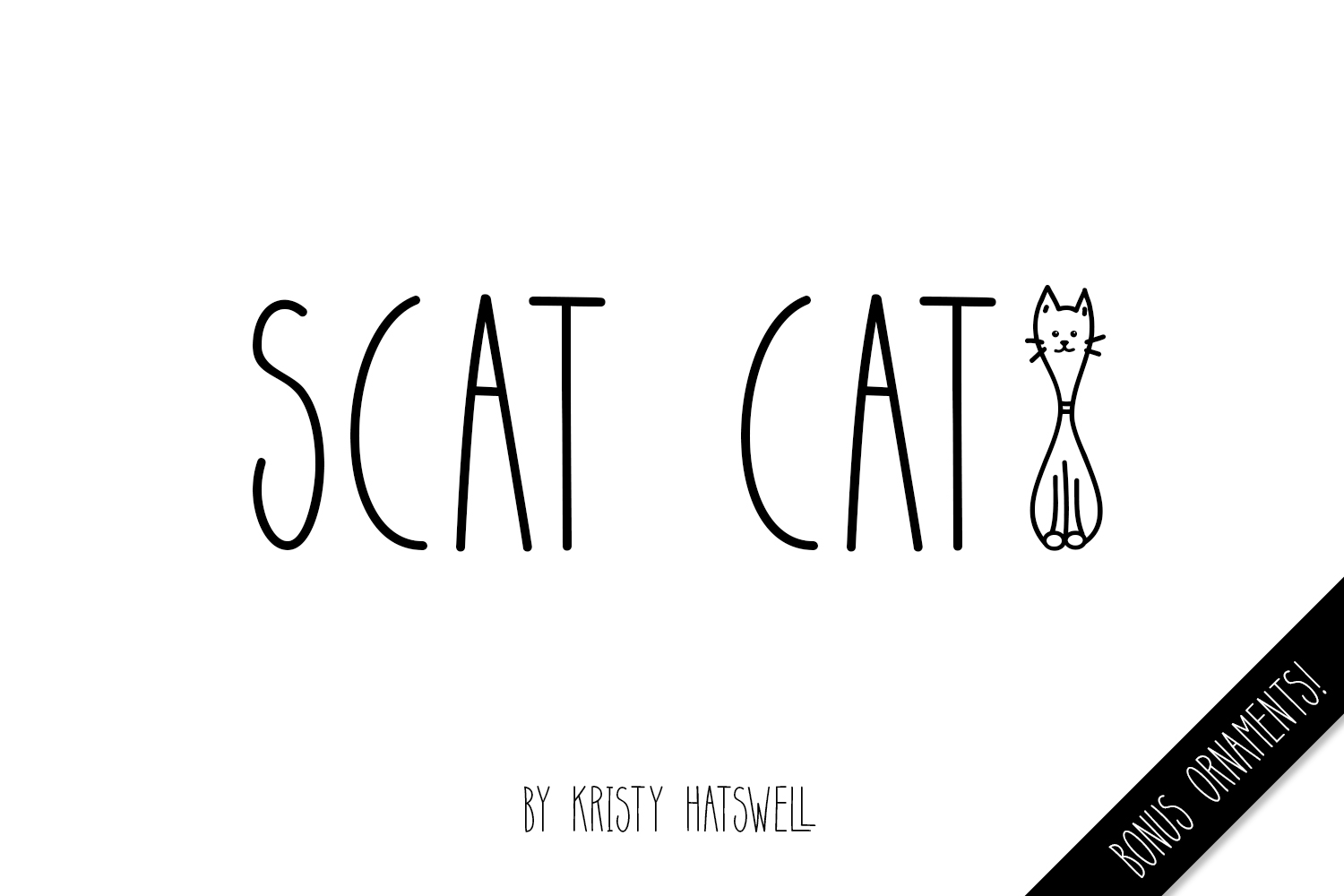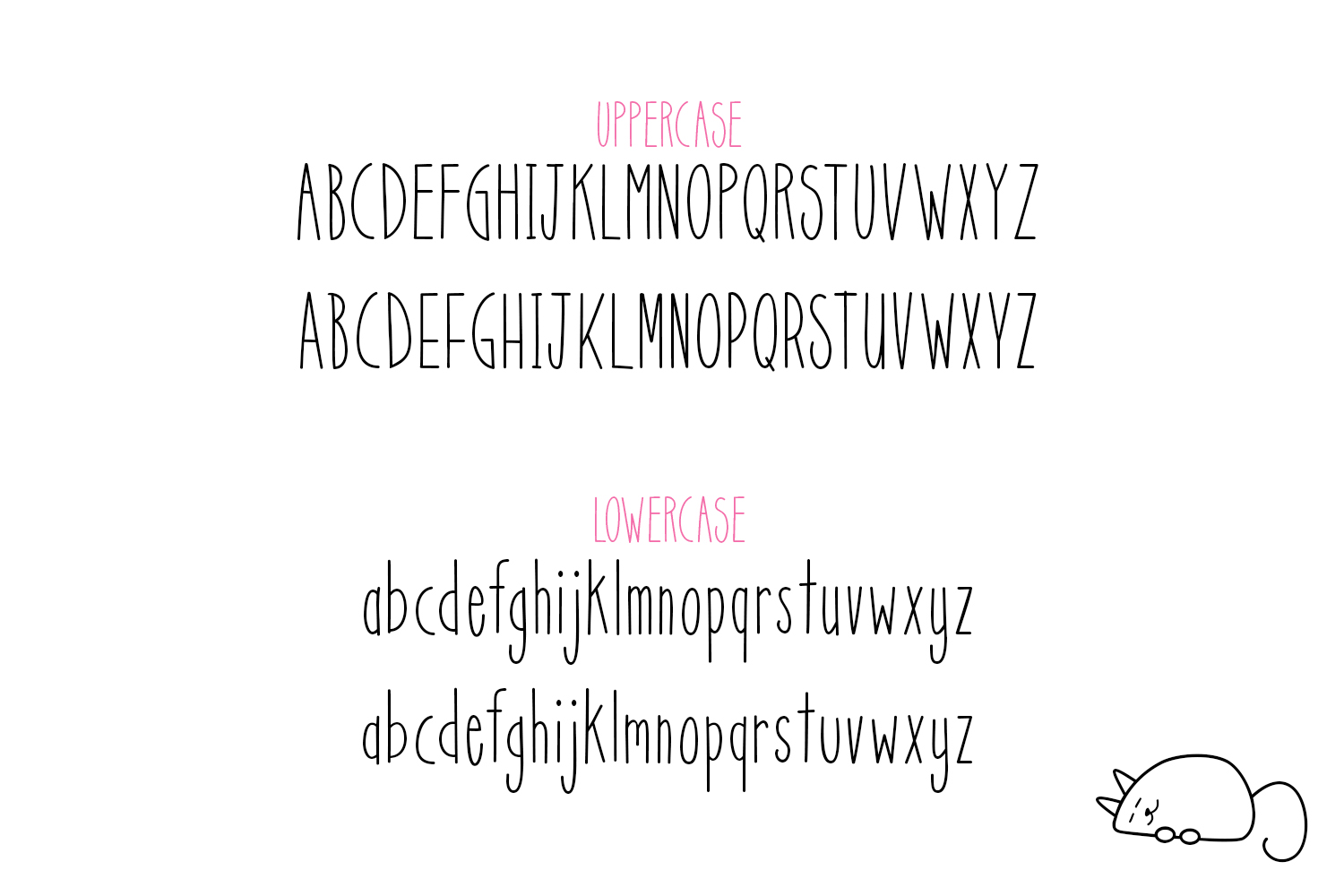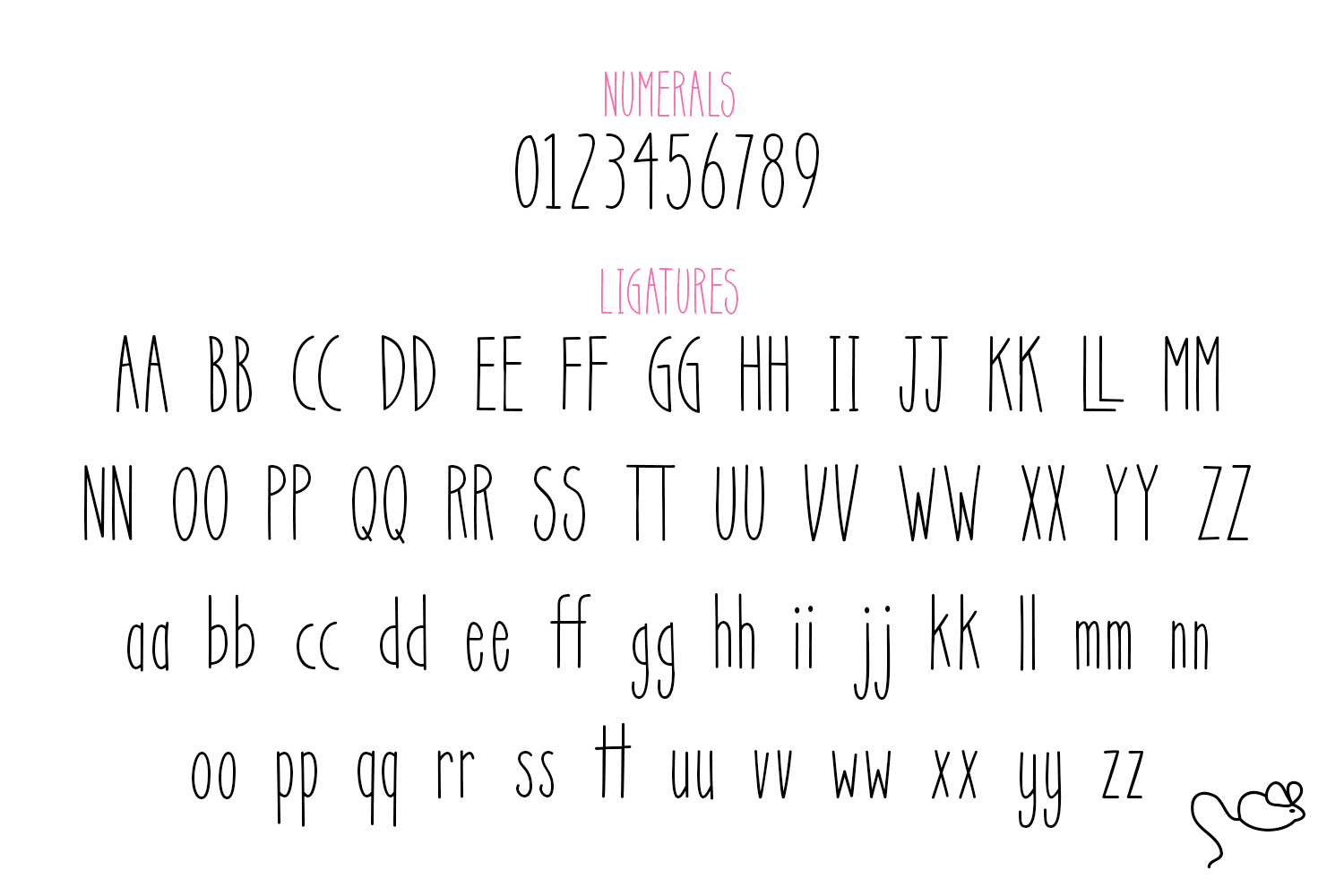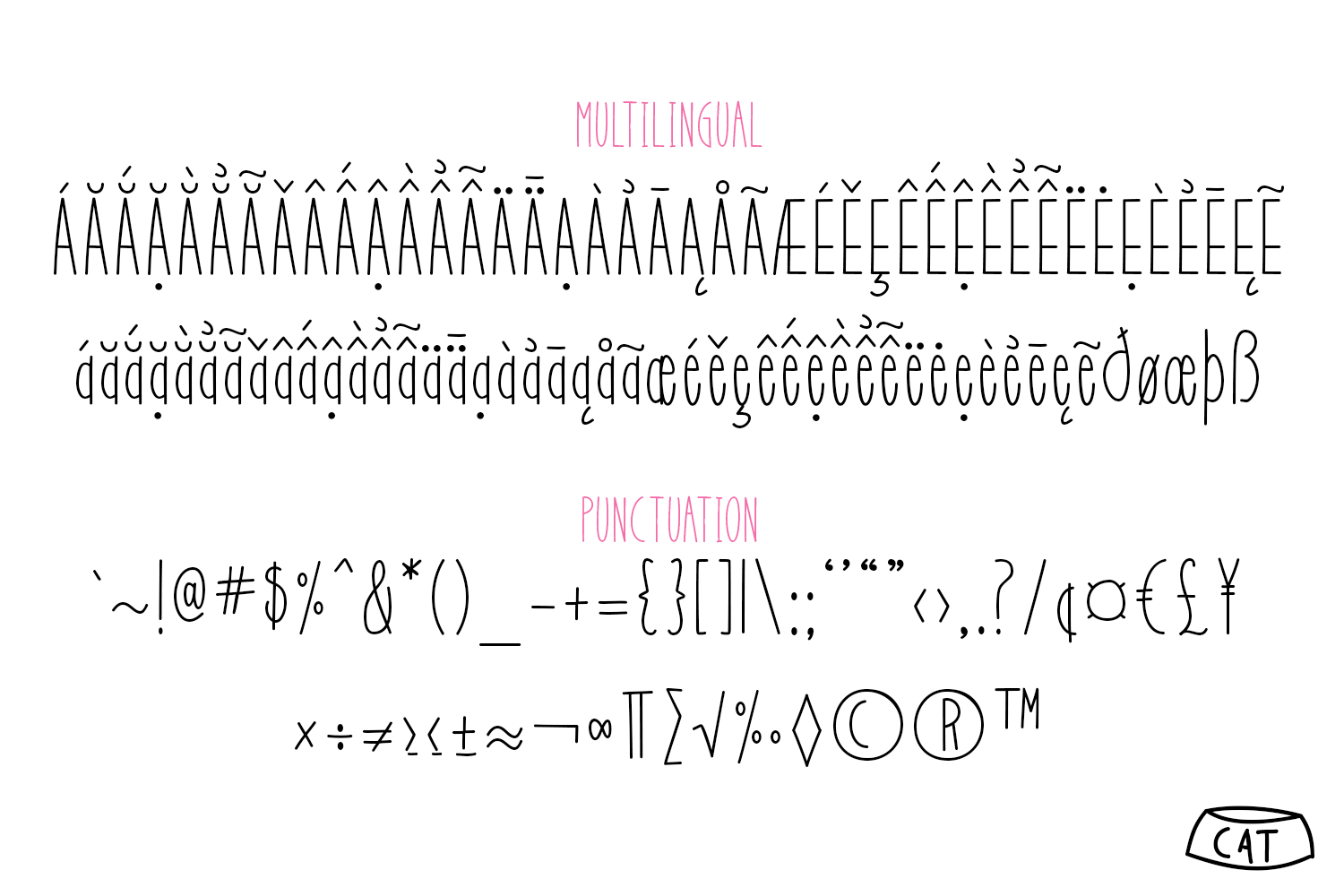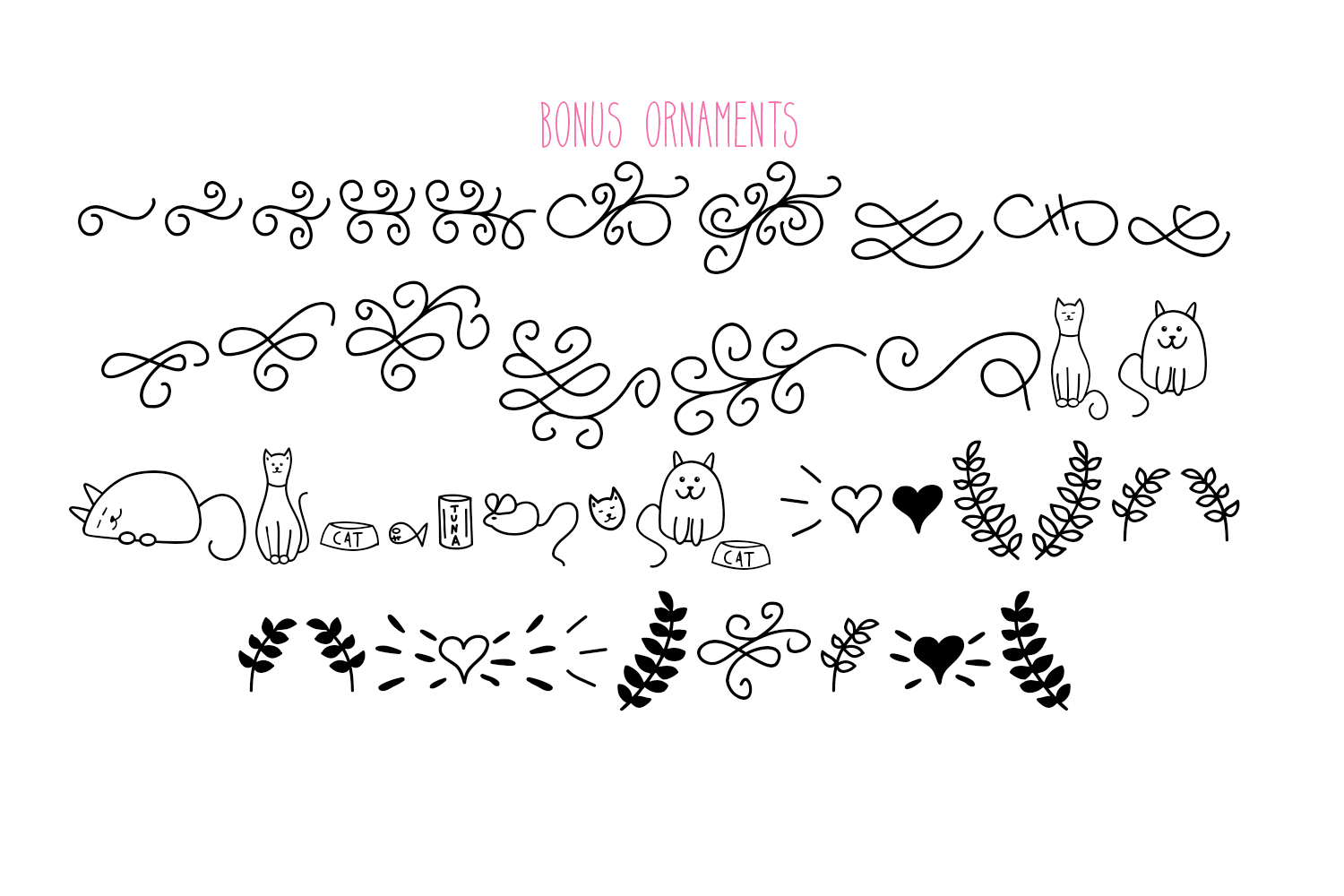
HomeScript FontsScat Cat Font Script Fonts Scat Cat Font FacebookXPinterestWhatsApp Scat Cat Font Poster 2 Scat Cat Font Poster 3 Scat Cat Font Poster 4 Scat Cat Font Poster 5 About Scat Cat Font Scat Cat is a tall and skinny decorative font full of cattiness! DOWNLOAD NOW People also explored Chronicle Font Evinsone Font Gabrielo Font Cute Samantha Font England Font Sweet Hearts Font Bang Bang Bang Font Fantasy Script 13 Font Cover Up 325 0 TagsScat Cat Font Previous articleModesty FontNext articleFraxinus Font LEAVE A REPLY Cancel reply Comment: Please enter your comment! Name:* Please enter your name here Email:* You have entered an incorrect email address! Please enter your email address here Website: Save my name, email, and website in this browser for the next time I comment. Personal Use Free The Brighton Personal Use Free Read more about this font Hysteria Santa Personal Use Free Read more about this font Party Pooper Personal Use Free Read more about this font BD Medled Personal Use Free Read more about this font BLOG Transform Your Website: Elevate Your Typography with 7 Best Web Font Generators Are you ready to transform your website's typography from ordinary to extraordinary? Great! Today, we're diving into the world of web font generators, which... Top 7 Google Fonts Alternatives for Faster and Privacy-Friendly Web Design (2025) Fonts That Capture the Spirit of New York City Where to Buy American Fonts Online in 2024